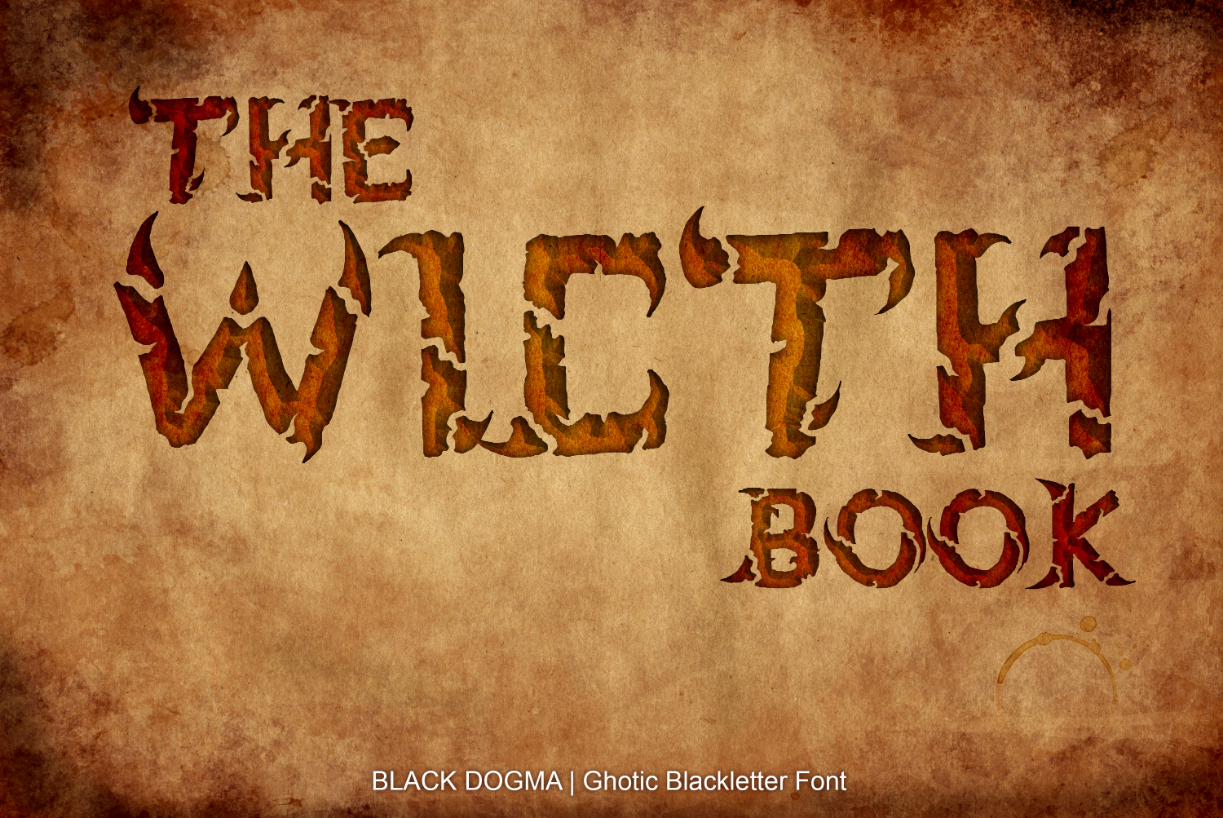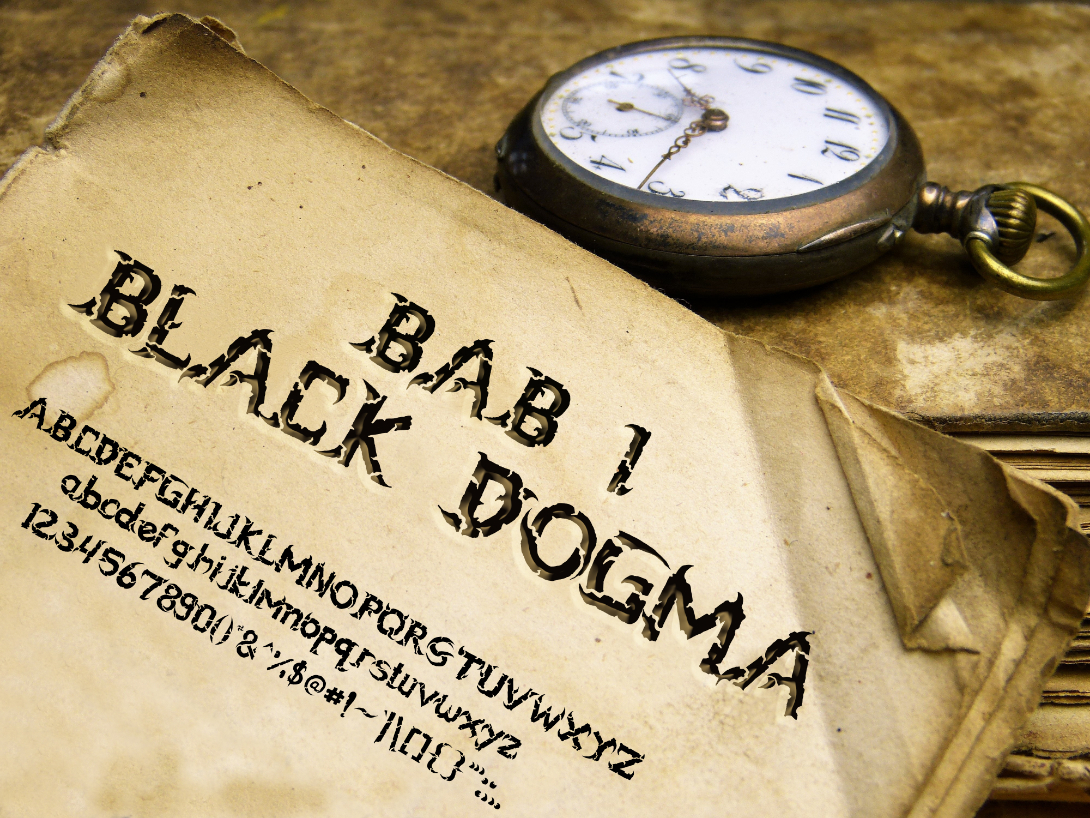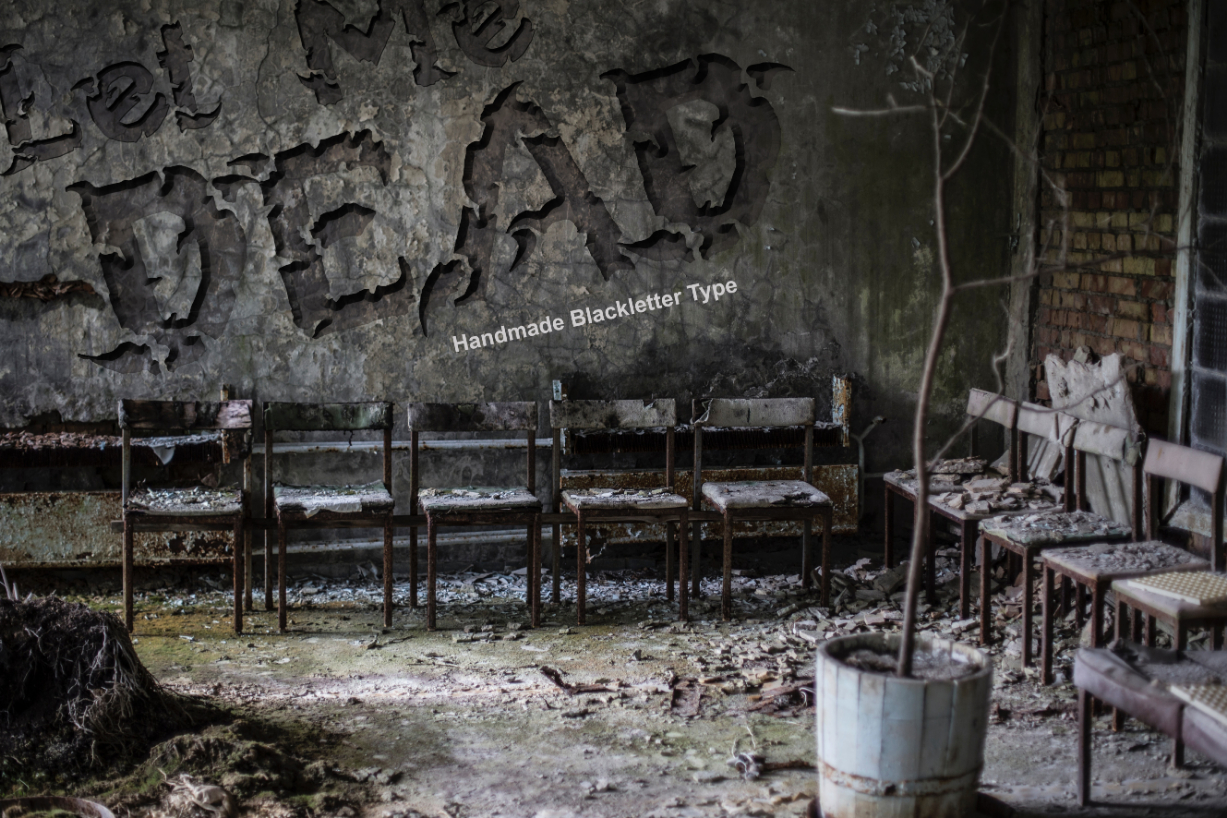
About Black Dogma Font
The Black Dogma is a Gothic blacketter font. It has an unique touch and is perfect for adding a creepy sensation to your designs.